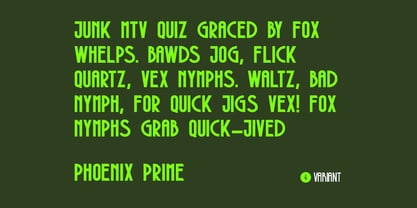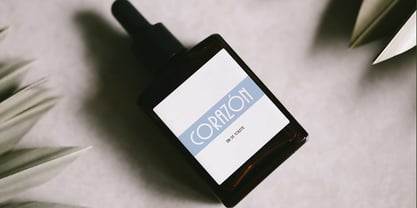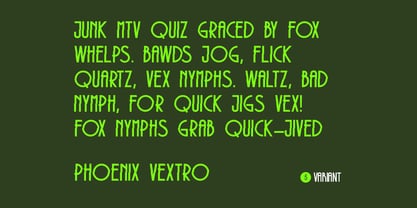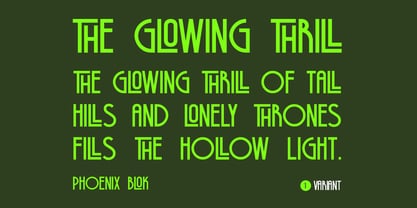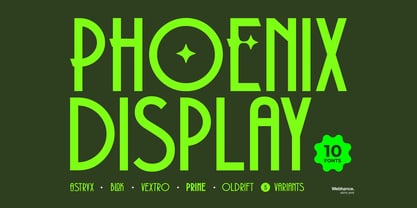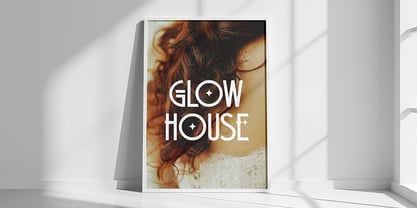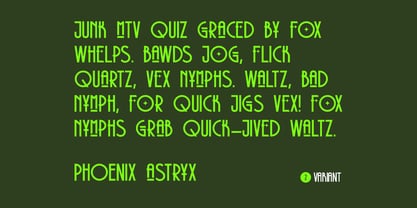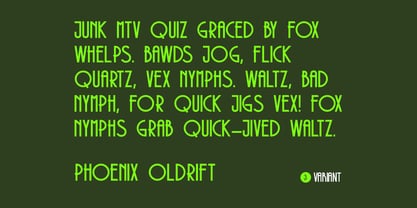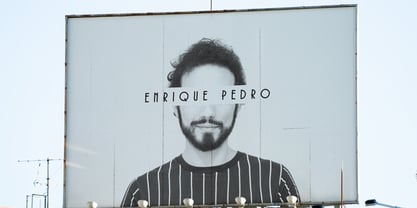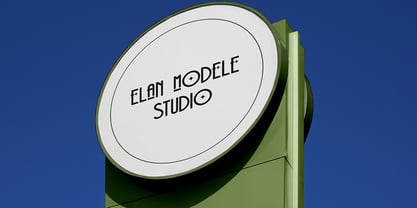
Phoenix Display
The Phoenix Display Font Family was designed by Alwin Johnson, Ancy George and published by Webhance. Phoenix Display contains 10 styles and family package options. More about this family
Phoenix Display Font Display is your ultimate choice when boldness and futuristic flair are essential. Designed with cosmic inspiration and modern geometry, Phoenix Display Font Display blends clean cuts, perfect circles, and stellar details to create a mesmerizing visual style. Whether you need sleek minimalism or rugged vintage charm, this font family offers five exciting variants — Astryx, Blok, Vextro, Prime, and Oldrift — ensuring every design project has its perfect match.
With 10 fonts and 5 stylistic variants, Phoenix Display Font Display brings structure, creativity, and an unstoppable energy to your projects. Its versatility shines in branding, editorials, sci-fi posters, gaming titles, luxury packaging, and social media graphics. Each variant has been crafted to maintain visual consistency while offering a fresh voice, making it an indispensable tool for designers seeking impact and innovation.
Beyond just aesthetics, Phoenix Display Font Display was engineered for functionality and adaptability. Whether you’re creating standout headlines or immersive visual experiences, this typeface family ensures your message bursts through with cosmic brilliance. Experience how geometry, creativity, and boldness collide in one breathtaking package designed for the future.